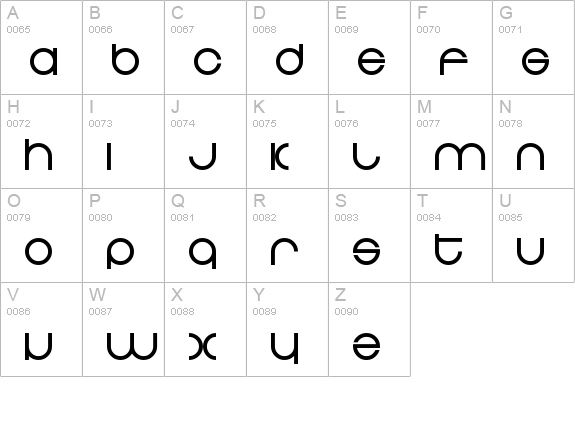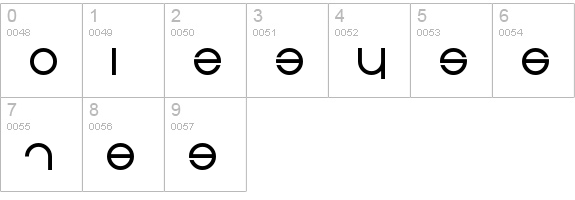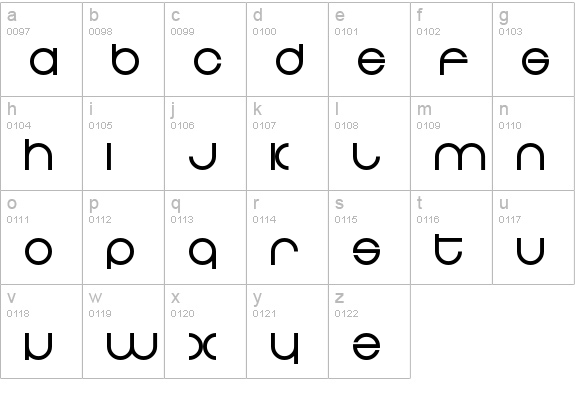
Zdyk Pisces Font Details
Zdyk Pisces font is a beautifully crafted typeface that exudes elegance and sophistication. With its graceful curves and flowing lines, this font is perfect for adding a touch of charm to any design project. The Zdyk Pisces font is versatile and can be used for various purposes such as branding, invitations, packaging, and more. What makes Zdyk Pisces font even more appealing is that it is available for free download at FontsMarket.com. This means that you can easily access this stunning font without any cost, making it a valuable addition to your font collection. So why wait? Download Zdyk Pisces font today and elevate your designs with its timeless beauty.